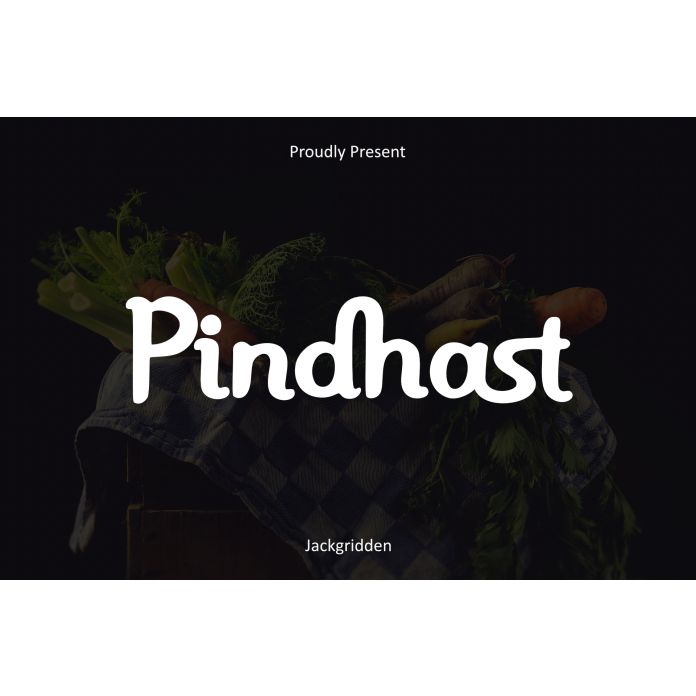
“Pindhast” is an elegant, ornate display font designed to captivate and stand out. With its intricate curves and stylish flourishes, this font exudes sophistication and grandeur, making it perfect for high-end branding, luxury logos, fashion advertisements, or any project in need of a bold, eye-catching statement. The unique, decorative features of “Pindhast” combine modern elegance with timeless charm, bringing a touch of class to both digital and print designs. Ideal for those who want to leave a lasting impression with every letter.”